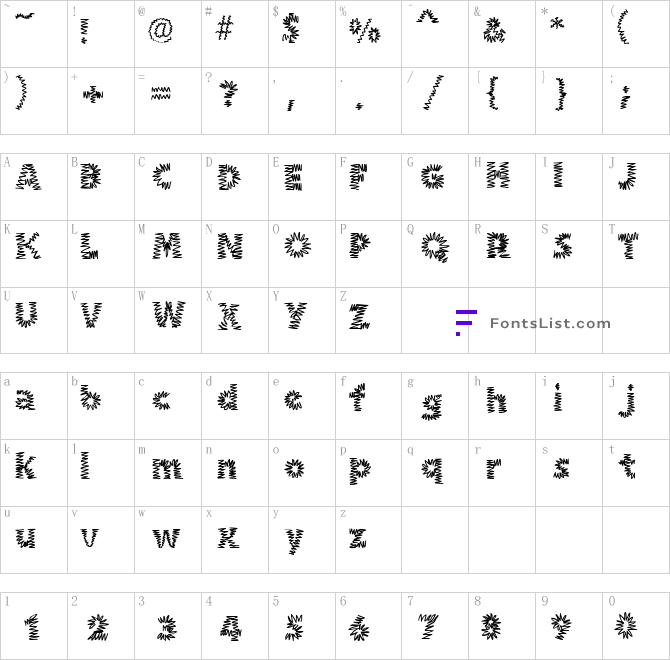
- Font Name:AnniesZigZag
AnniesZigZag.ttf is a very beautiful artistic font, AnniesZigZag.ttf is widely used in the design and printing of various books and pictures,AnniesZigZag.ttf has a strong visual impact,AnniesZigZag.ttf is a commonly used font in newspapers, magazines and books, and is used in posters, e-commerce Poster design, store design, logo design, font design and other fields.AnniesZigZag.